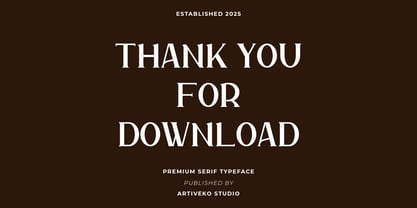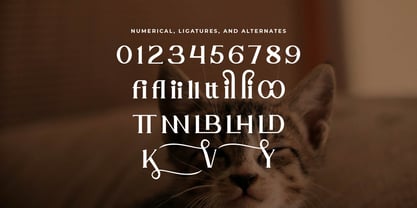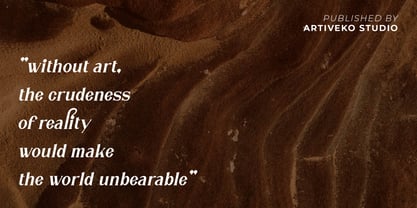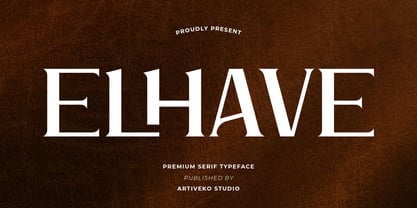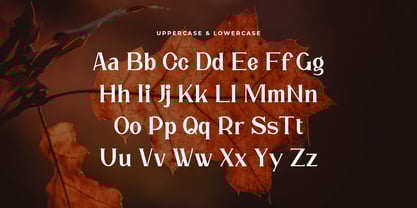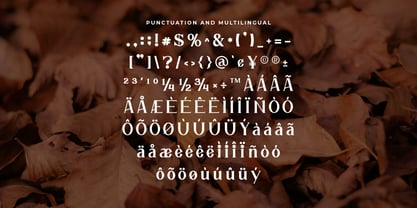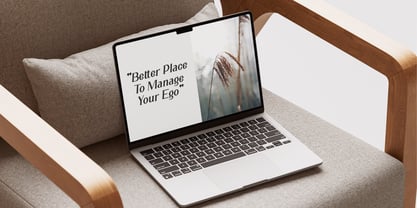
Elhave
by Artiveko
The Elhave Font Family was designed by Iwan Alwan and published by Artiveko. Elhave contains 2 styles and family package options. More about this family
Elhave is a refined luxury serif font designed to bring sophistication and exclusivity to any project. With its high-contrast strokes, graceful curves, and polished letterforms, Elhave captures the essence of premium aesthetics—perfect for branding, editorial design, packaging, invitations, fashion campaigns, and upscale digital content. Every glyph in Elhave is crafted with meticulous detail, combining classic serif charm with a modern luxurious finish. The sharp yet elegant serifs create a distinguished look that enhances readability while maintaining a high-class visual identity. Elhave includes uppercase and lowercase letters, numerals, punctuation, multilingual support, and stylistic alternates for added versatility, allowing designers to build cohesive and elevated typography systems. Bring a sense of prestige and timeless beauty to your design with Elhave—a luxury serif font created for brands that value elegance, clarity, and sophistication.
Designers: Iwan Alwan
Foundry: Artiveko